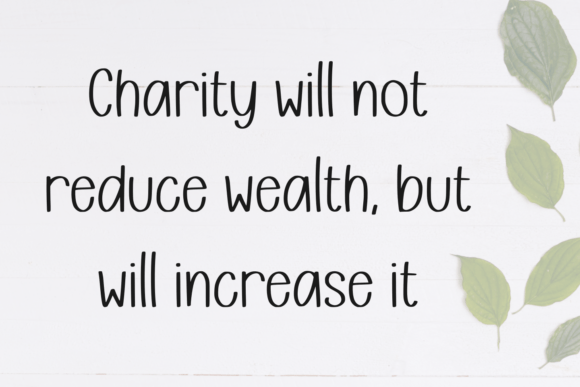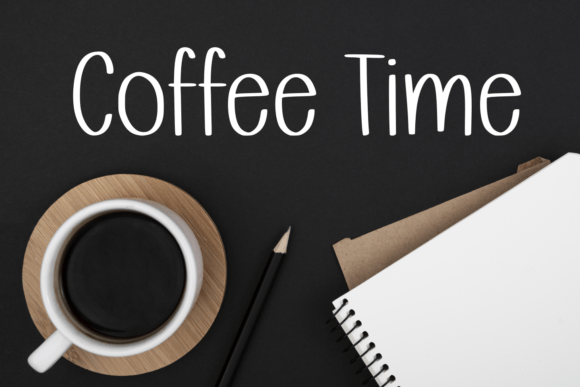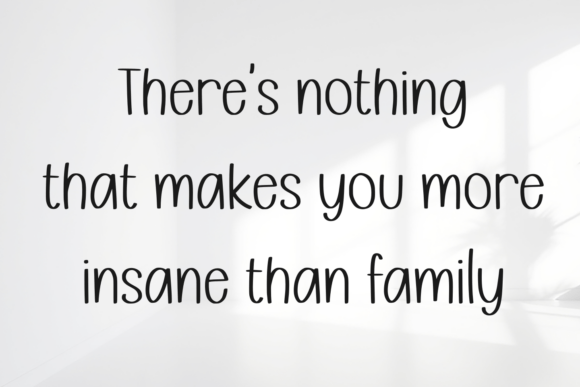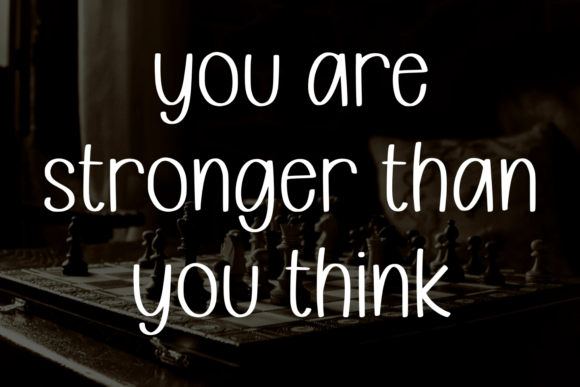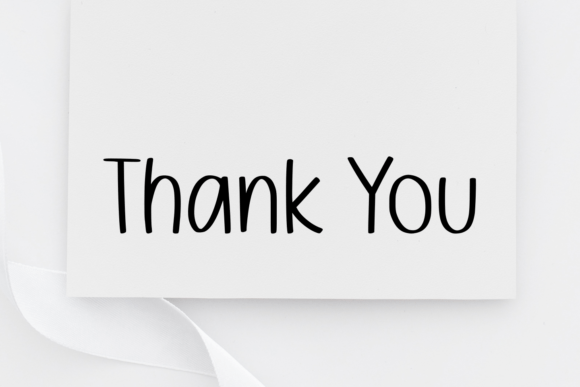
Introduction to Notuline Font
Have you ever sat down with a blank notebook, a cup of coffee, and let your creativity flow? The sound of pen scratching paper, the feeling of ideas unfolding – it’s a moment of pure bliss. But, what if you could capture that essence on a digital canvas? Enter the Notuline Font, a clean and friendly handwritten text font designed for everyday readability.
As a designer, you know the importance of a high-quality design resource that sets your creative project apart. Notuline Font is more than just a font – it’s a way to convey your message in a warm, human tone. With its simple strokes and natural spacing, it’s perfect for notes, journals, planners, educational materials, branding, and digital content that needs a personal touch. And the best part? It’s available for free download, making it a valuable addition to your design toolkit.
Key Features of Notuline Font
- Unique, elegant script font featuring a transparent background, allowing for versatility in design.
- Designed with precision, offering a high-resolution font suitable for both digital and print media.
- Perfect for designers and artists seeking a sophisticated, yet subtle font for their creative projects.
- Includes a wide range of glyphs, making it an excellent choice for various languages and alphabets.
I recently had the chance to experiment with the Notuline Font, and I must say it’s been a delightful addition to my design resource arsenal. As a designer, I’m always on the lookout for high-quality fonts that can elevate my creative projects and give them a unique touch.
The Notuline Font is available for free download, which is a huge plus in my book. The fact that it’s offered at no cost doesn’t mean it lacks quality, though – the font is beautifully crafted and features a transparent background, making it perfect for use on both light and dark backgrounds.
- High-quality design: The Notuline Font is expertly crafted, making it perfect for use in professional and personal projects alike.
- Transparent background: This feature makes the font highly versatile and easy to use on any background.
- Limited character set: While the font is well-crafted, it does have a limited character set, which may be a drawback for designers who need to work with a wide range of characters.
Overall, I’m thoroughly impressed with the Notuline Font and would highly recommend it to any designer looking for a high-quality, free design resource. Whether you’re working on a personal project or a professional one, this font is sure to deliver.
Notuline Font is a high-quality font that can be easily customized and edited to suit your creative project. You can change the font size, color, and style to fit your design needs. Additionally, you can use the font with a transparent background to create a clean and minimalist look.
To get the most out of Notuline Font, use it in conjunction with other design elements, such as images and graphics. This will help create a visually appealing and professional-looking design. Additionally, use the font in a variety of contexts, such as headings, subheadings, and body text, to add depth and interest to your design.
Notuline Font is commonly used in creative projects, such as logos, business cards, and brochures. It is also used in digital design, such as website headers and footers, and in print design, such as flyers and posters. The font’s clean and minimalist style makes it perfect for use in a variety of design contexts.